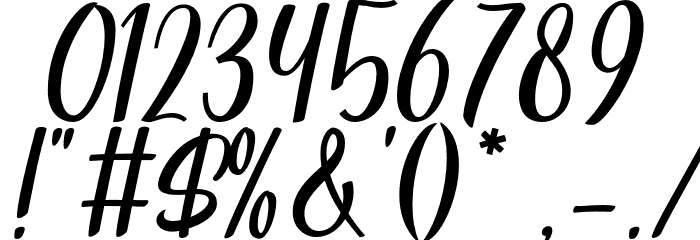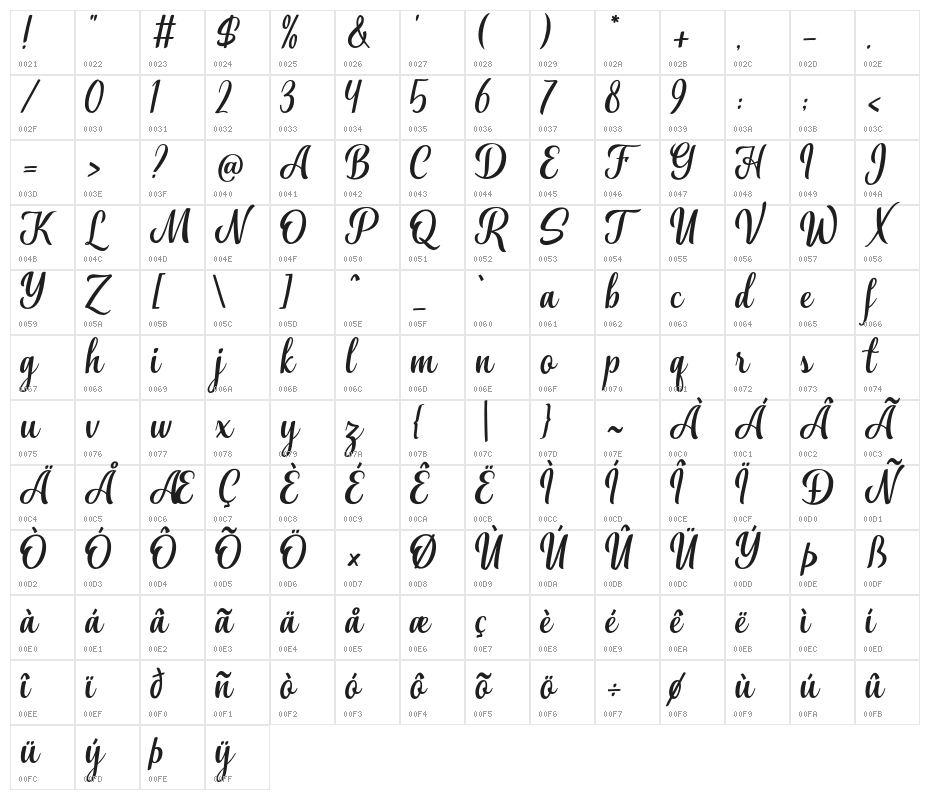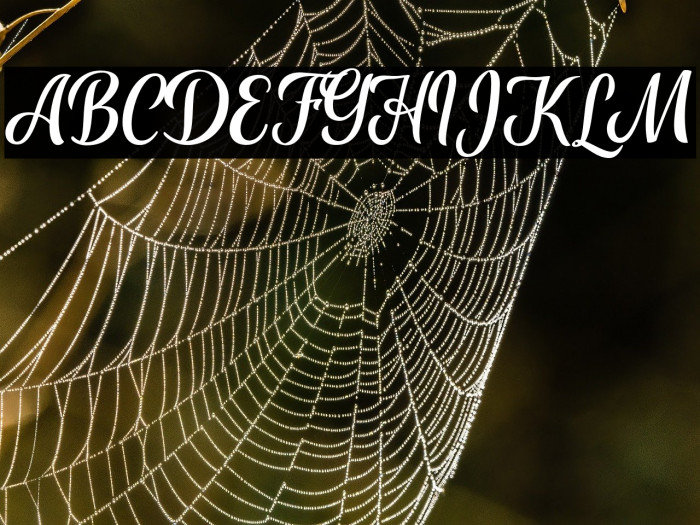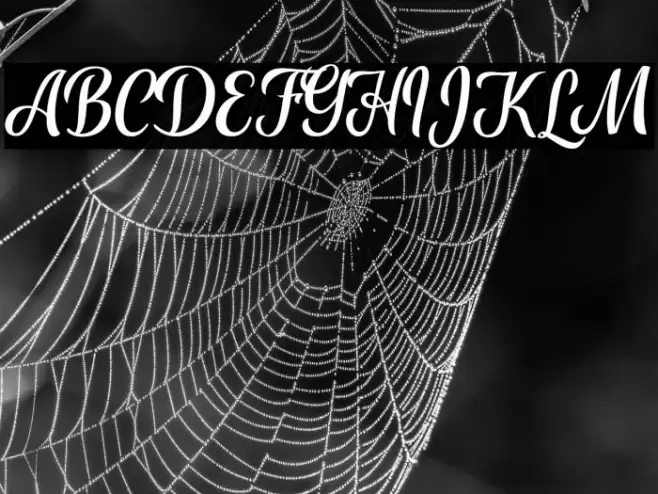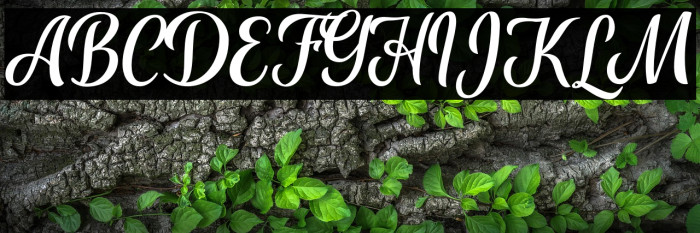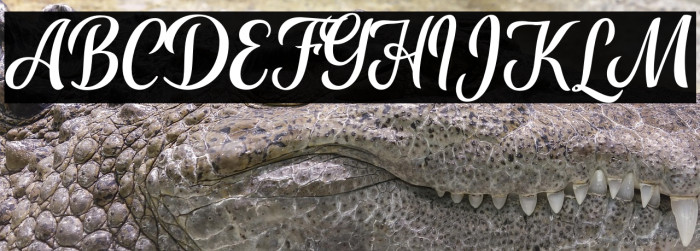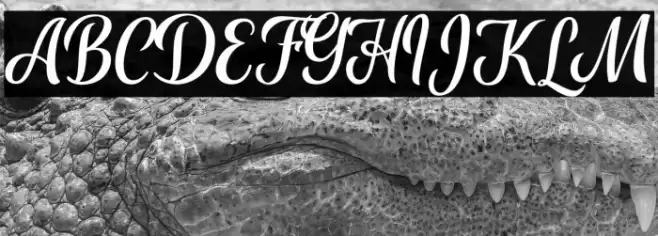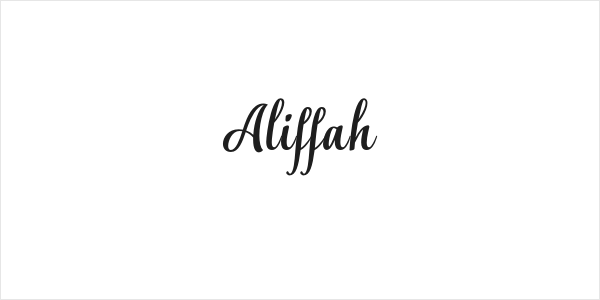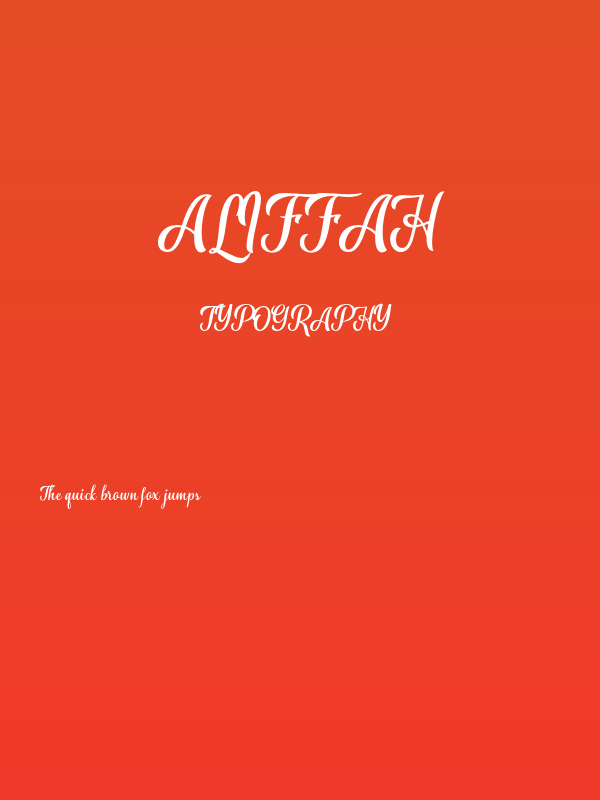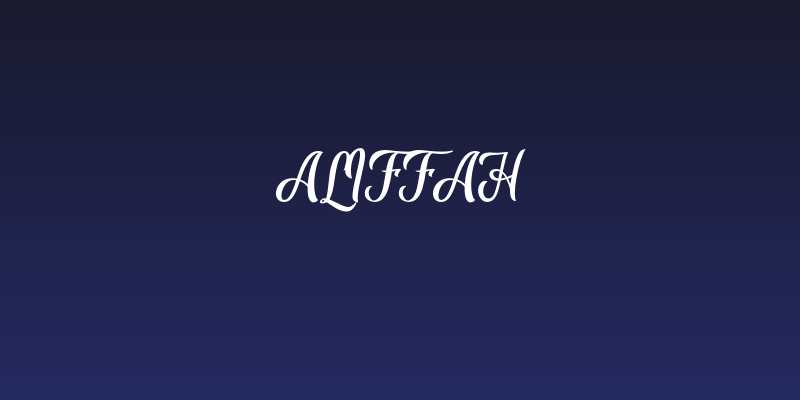
Aliffah Font
Aliffah Description
This font features a flowing, cursive style that exudes elegance and sophistication. The characters are interconnected, creating a seamless and fluid appearance. The uppercase letters are bold and prominent, while the lowercase letters maintain a graceful and balanced form. The numerals and special characters are designed to complement the overall script style, adding a touch of flair. This font is perfect for projects that require a personal and artistic touch, such as invitations, greeting cards, and branding materials. Its unique style makes it stand out, providing a sense of charm and creativity.
| Proposed Projects | Ideal for invitations, greeting cards, branding, and artistic projects. |